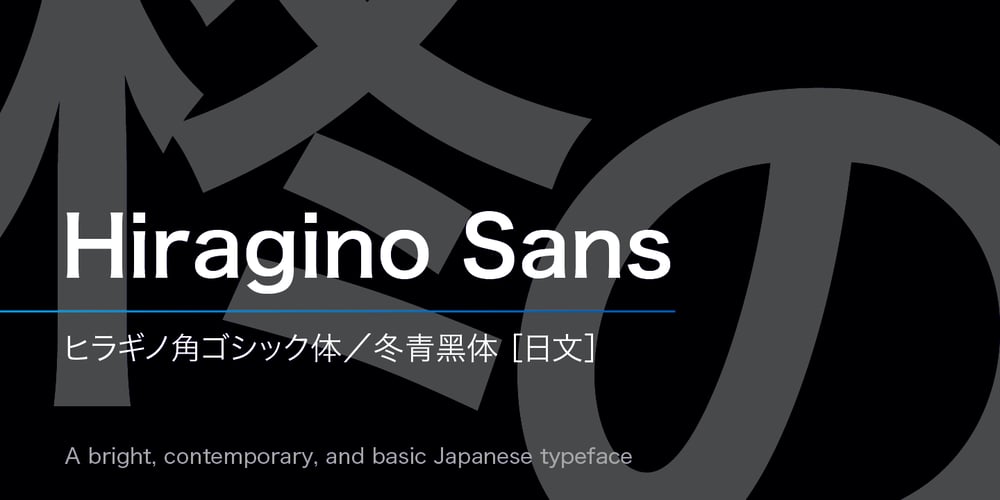
Hiragino Sans Font Family was designed by published by SCREEN Graphic Solutions. Hiragino Sans contains 10 styles and family package options. Mindful that Hiragino Sans (Kaku Gothic) would be used in conjunction with Hiragino Serif (Mincho), SCREEN developed a font that anticipated today’s world where most people do their reading on displays and yet still has an orthodox letterform that does not blur when printed on paper. In short, our goal with this font was to create a new concept that responds to the demands of today’s times. This font offers weight variations from W0 to W9 and is extremely versatile. This makes it well-suited to all visual expression media including paper, metallic textures, resins, cloth, television, movies, broadcasting, websites, and electronic displays. One of the design’s strongpoints is that it elides serif on the right side of each stroke, thus delivering more spacious counters and a comfortable appearance. Thanks to this, the typeface not only delivers a contemporary, lively impression same as Latin sans serif typefaces, but also heightens the natural continuity and readability of text whether it is set vertically or horizontally. As a result, it makes it possible to bring a strong appealing power to text. Without a doubt, this is typeface that above else embodies the role of Sans Serif.